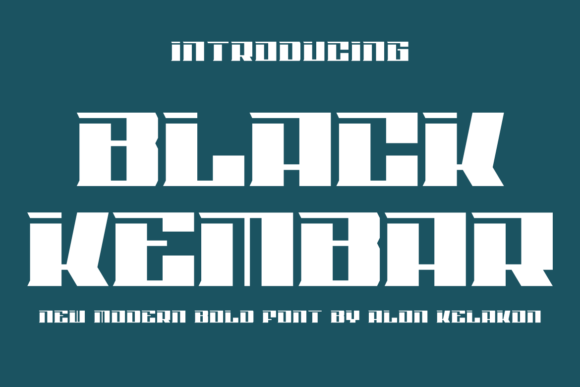
Embark on a typographical journey with Black Kembar, a display font that commands attention and exudes strength. Its bold and heavy characters possess a solid and substantial appearance, evoking a sense of confidence and authority. Each letter is meticulously crafted with sharp edges and clean lines, radiating precision and control.
Black Kembar is the epitome of impact, ideal for crafting headlines that grab eyeballs and logos that leave an indelible mark. Its commanding presence makes it perfect for creating posters and other marketing materials that demand attention. This font is a symbol of power and determination, empowering your designs with an air of authority.
Unleash the potential of Black Kembar and watch your creative visions come to life. Its bold and striking nature is sure to elevate your designs, leaving a lasting impression on your audience. Whether you're a seasoned designer or just starting out, Black Kembar is the perfect tool to add a touch of boldness and impact to your projects.
With Black Kembar, you'll discover a font that's more than just a collection of characters; it's an expression of strength and confidence. Embrace the power of typography and let your designs speak volumes with this commanding and captivating font. Dive into the world of Black Kembar today and experience the transformative power of bold and impactful typography.